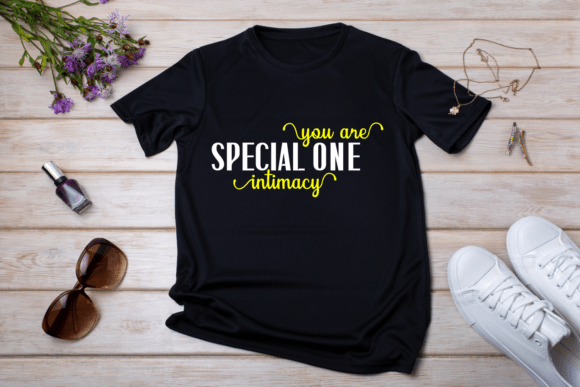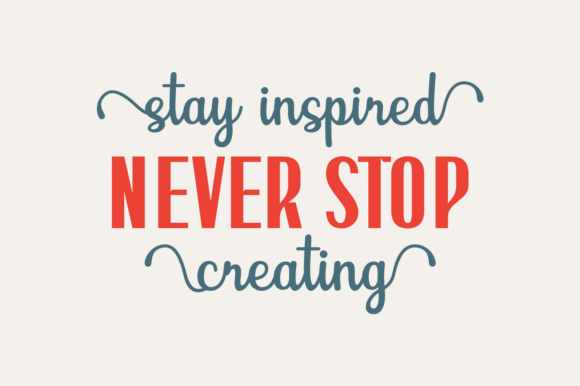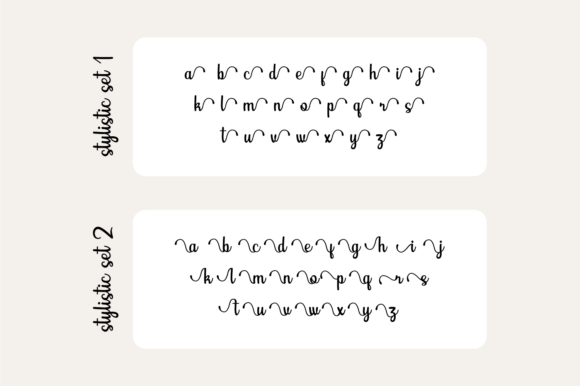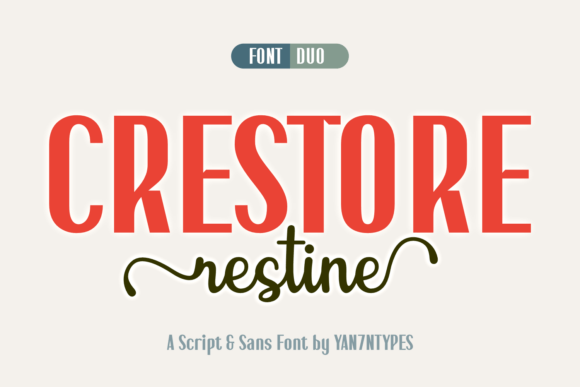
Introduction to Crestore Restine Duo Font
Unveiling the Crestore Restine Duo Font – a groundbreaking dual font union, brilliantly amalgamated into one sleek entity.
This versatile duo font pairing brings together two complementary styles to give your designs an effortlessly elegant and inviting appeal The Crestore font is a bold, clean sans-serif display typeface, offering strong readability and a modern, confident presence, perfect for impactful headlines and branding.
Crestore Restine Duo Font offers exceptional quality and versatility, making it a valuable addition to your design toolkit. Whether you’re creating for personal projects or commercial use, Crestore Restine Duo Font delivers professional results.